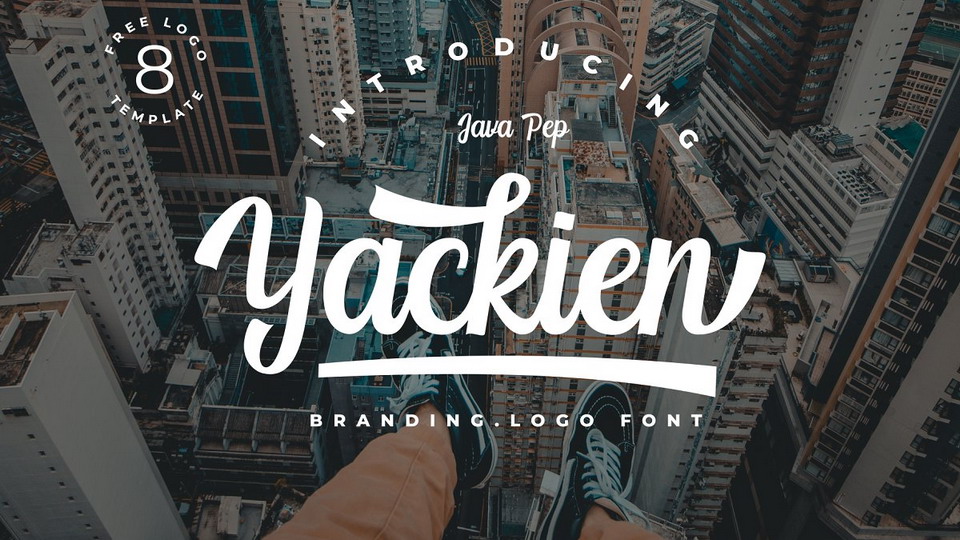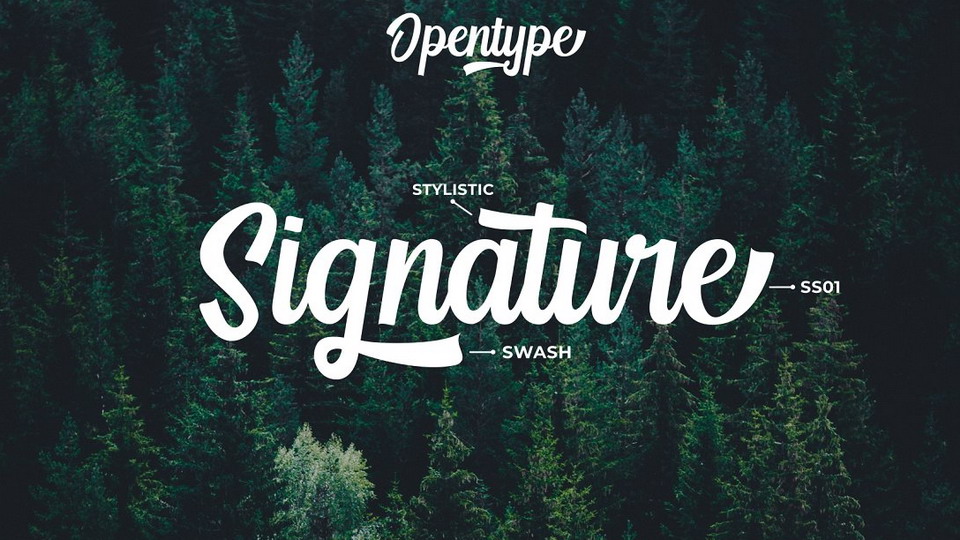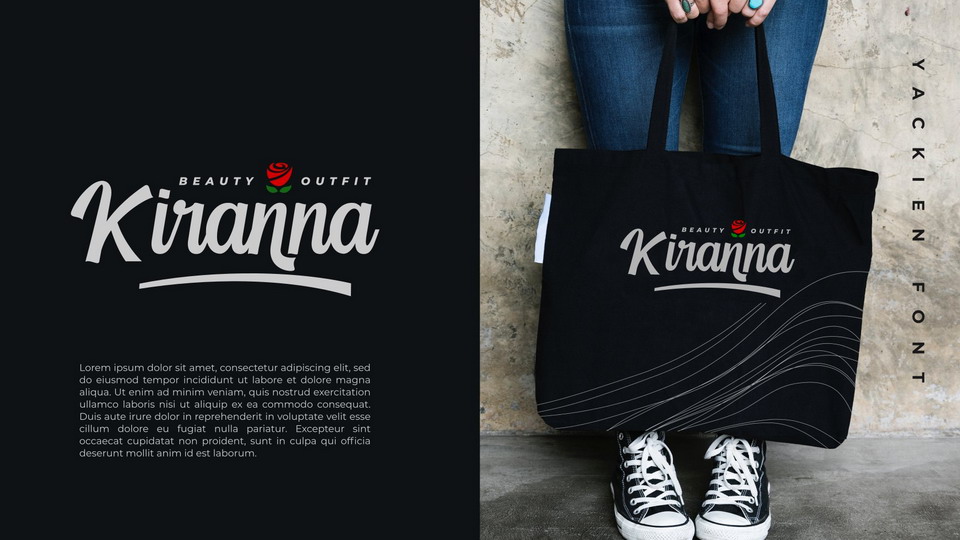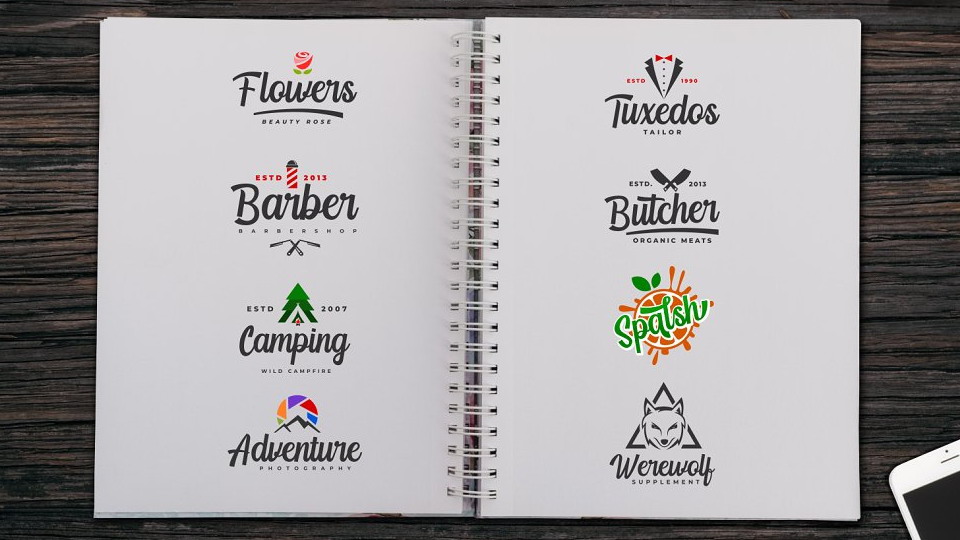
Yackien is a cool hand lettered logo font. It made for branding and logo design, but still elegant for other project designs.
Yackien (yakin) is the Indonesian language that the meaning is believed, trust, and convincing. So Yackien font can give off an aura of trust, believed, convincing, in your brand’s logo and design.